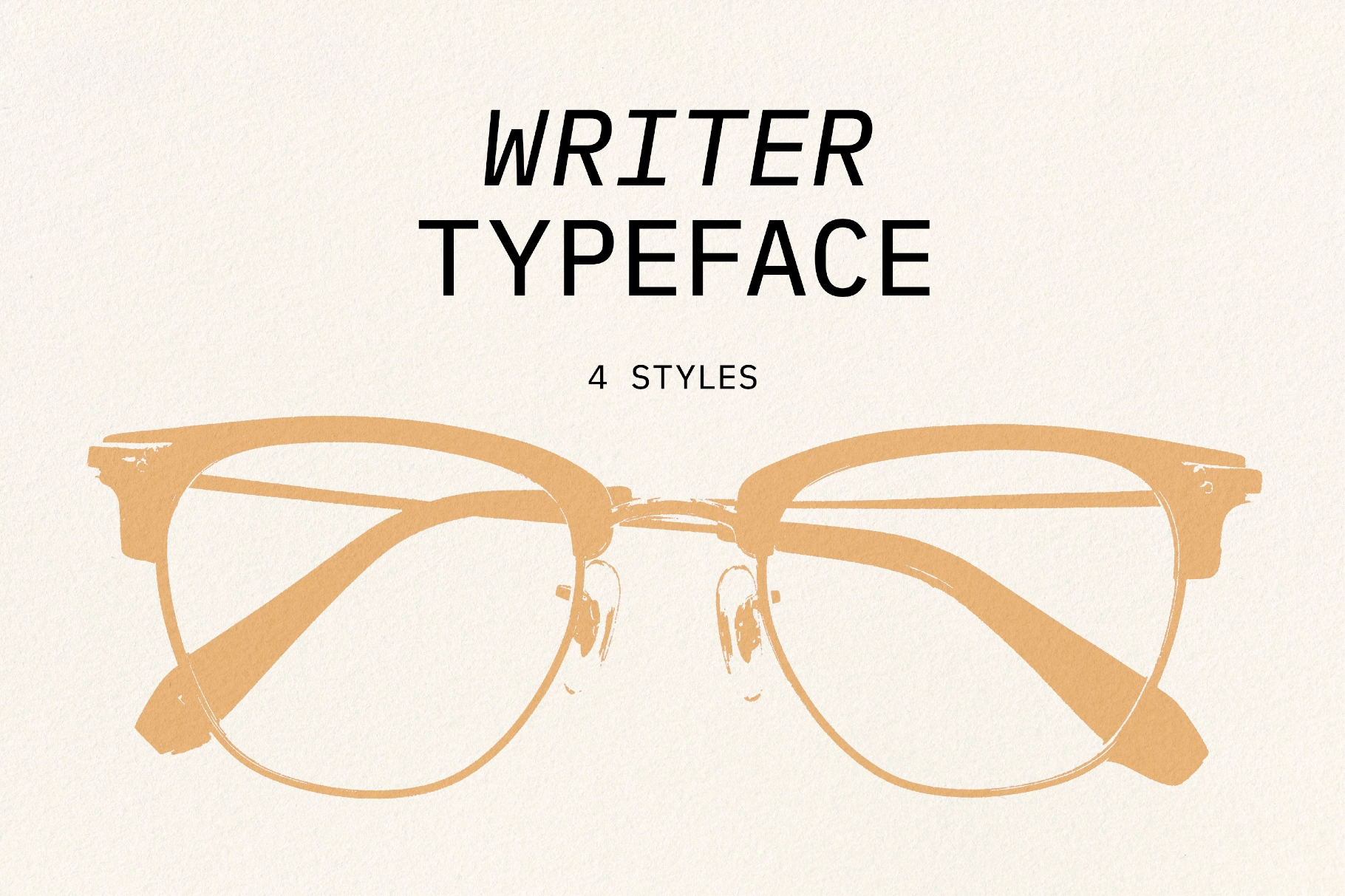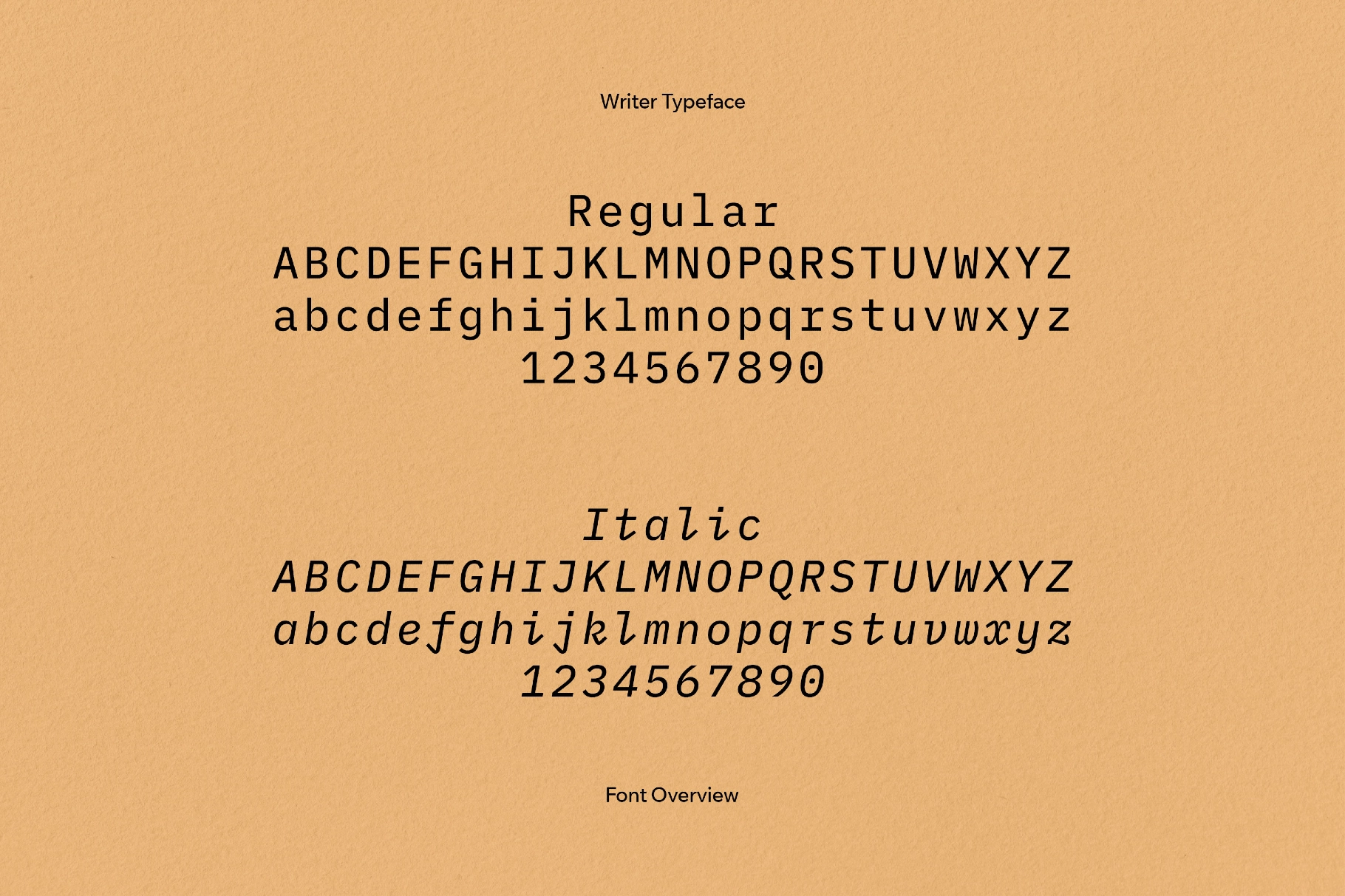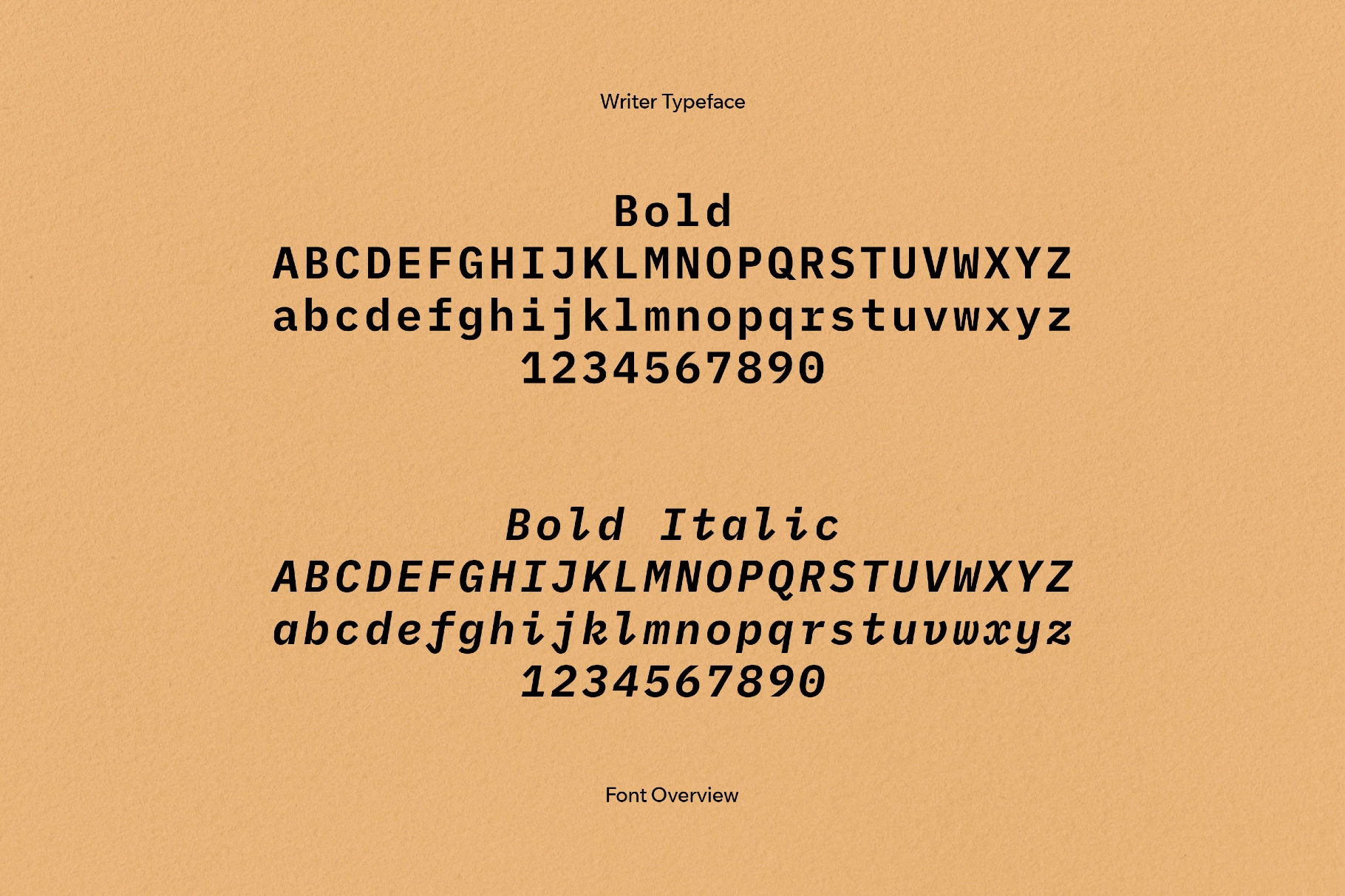
Writer Typeface
This monospaced sans-serif carries a clean and evenly paced structure, but the widened letter-spacing and softened terminals give it an analog feel. Upright forms, open counters, and a gentle mechanical appearance keep it highly legible, even in dense blocks of text.
Use Writer for technical documentation, editorial layouts, UI mockups, and identity systems for publishers and indie software studios. Besides, it suits author portfolios, coding tutorials, study materials, blog themes, stationery branding, magazines, academic projects, and minimalist book interiors.